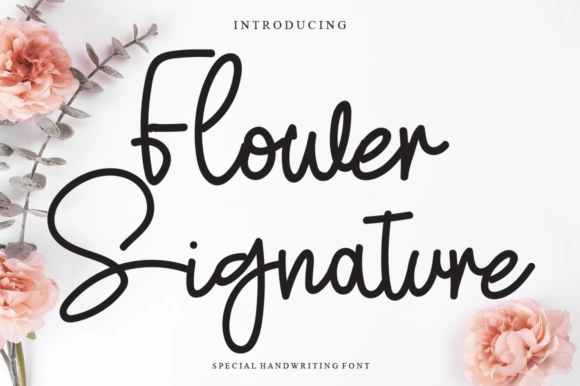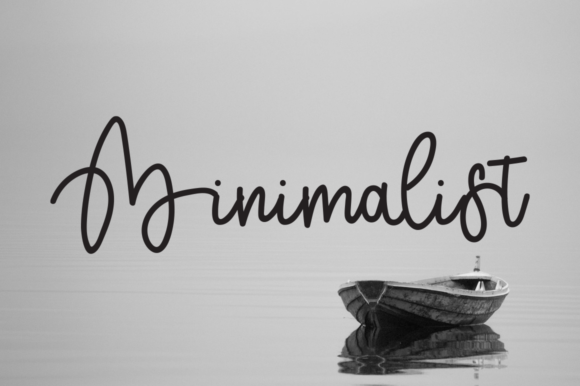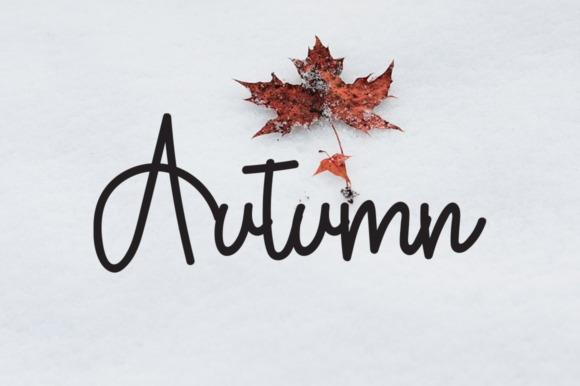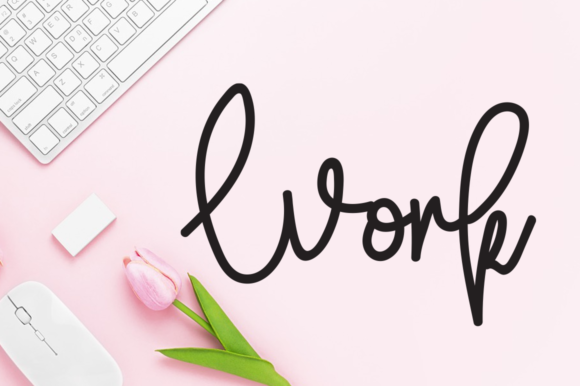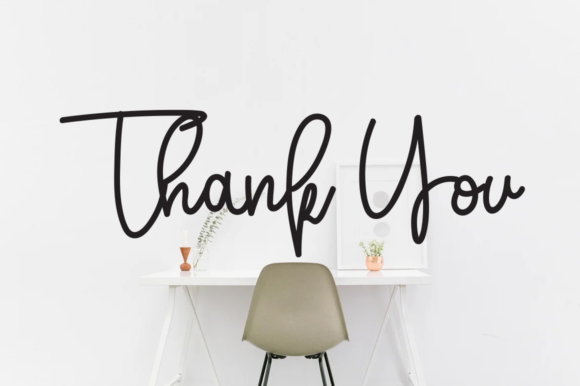
About Flower Signature Font
Flower Signature is a relaxed and stylish script font that combines readability with a touch of elegance. With its smooth curves and versatile design, this font is perfect for various applications, including fashion branding, editorial designs, and more. By adding Flower Signature to your projects, you can confidently enhance the visual appeal and achieve stunning results.
The relaxed and readable nature of Flower Signature font makes it highly versatile and accessible. Its well-crafted letterforms and smooth curves contribute to a visually pleasing aesthetic that feels contemporary and stylish. Whether you’re working on fashion branding, magazine layouts, or any other design project, Flower Signature font enhances the overall visual appeal with its relaxed and elegant demeanor.
Using Flower Signature font allows you to create designs that are both stylish and approachable. Its balanced and readable letterforms make it easy for your audience to engage with your content. This font brings a sense of sophistication and flair, making your designs visually appealing and captivating.
The versatility of Flower Signature font makes it suitable for a wide range of design elements. From logos and headlines to body text and callouts, Flower Signature font adds a touch of style and elegance, creating a harmonious and visually pleasing composition.
Incorporating Flower Signature font into your design projects empowers you to create captivating visuals with a relaxed and stylish touch. Its smooth curves and readability make it a valuable asset for fashion branding, editorial designs, and beyond.
In summary, Flower Signature is a relaxed, readable, and stylish script font that enhances the visual appeal of your designs. Its smooth curves and versatile design create a contemporary and elegant aesthetic. Embrace the versatility of Flower Signature font and confidently incorporate it into your fashion branding, editorial designs, and more, and you will love the results as your projects come to life with a touch of style and sophistication.